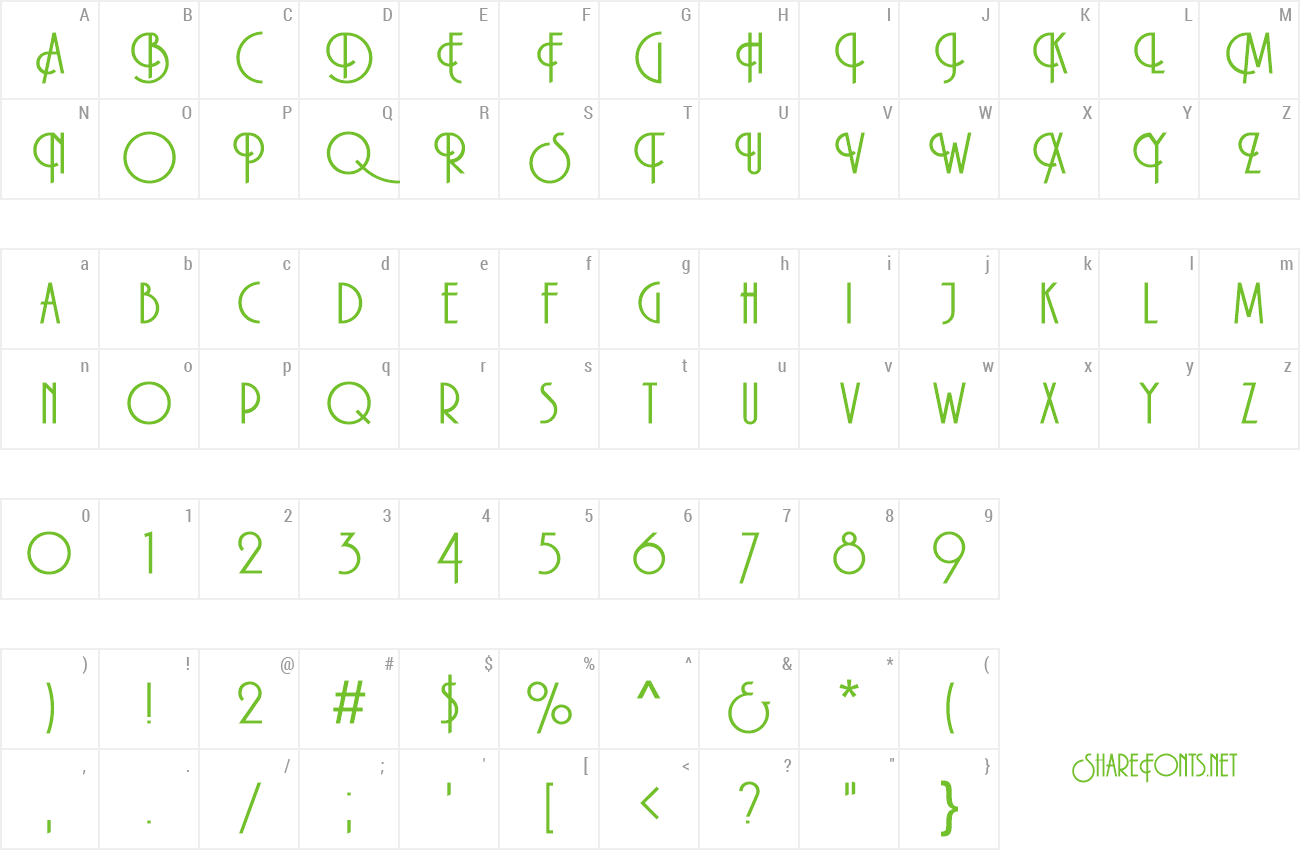
Macarena Dt Bold Font Free Download - Macarena dt contains 4 styles and family package options. Based on custom design work by dtp types limited in 1999. 100 free fonts alternatives to macarena dt bold. Web 60% what fonts are similar to macarena dt bold? Web macarena dt was published by dtp types. Web what is the macarena dt font?
Macarena dt contains 4 styles and family package options. Web what is the macarena dt font? Based on custom design work by dtp types limited in 1999. Web 60% what fonts are similar to macarena dt bold? 100 free fonts alternatives to macarena dt bold. Web macarena dt was published by dtp types.
Web what is the macarena dt font? 100 free fonts alternatives to macarena dt bold. Based on custom design work by dtp types limited in 1999. Macarena dt contains 4 styles and family package options. Web macarena dt was published by dtp types. Web 60% what fonts are similar to macarena dt bold?
Web macarena dt was published by dtp types. Macarena dt contains 4 styles and family package options. Based on custom design work by dtp types limited in 1999. Web what is the macarena dt font? Web 60% what fonts are similar to macarena dt bold?
Web 60% what fonts are similar to macarena dt bold? Web macarena dt was published by dtp types. Macarena dt contains 4 styles and family package options. Based on custom design work by dtp types limited in 1999. Web what is the macarena dt font?
100 free fonts alternatives to macarena dt bold. Based on custom design work by dtp types limited in 1999. Web 60% what fonts are similar to macarena dt bold? Web macarena dt was published by dtp types. Macarena dt contains 4 styles and family package options.
Macarena font
Web macarena dt was published by dtp types. Macarena dt contains 4 styles and family package options. Web what is the macarena dt font? 100 free fonts alternatives to macarena dt bold. Web 60% what fonts are similar to macarena dt bold?
100 free fonts alternatives to macarena dt bold. Based on custom design work by dtp types limited in 1999. Web macarena dt was published by dtp types. Macarena dt contains 4 styles and family package options. Web what is the macarena dt font?
Based on custom design work by dtp types limited in 1999. Web what is the macarena dt font? Web 60% what fonts are similar to macarena dt bold? Web macarena dt was published by dtp types. 100 free fonts alternatives to macarena dt bold.
Web 60% what fonts are similar to macarena dt bold? Based on custom design work by dtp types limited in 1999. Web what is the macarena dt font? Web macarena dt was published by dtp types. 100 free fonts alternatives to macarena dt bold.
Based on custom design work by dtp types limited in 1999. 100 free fonts alternatives to macarena dt bold. Web what is the macarena dt font? Macarena dt contains 4 styles and family package options. Web macarena dt was published by dtp types.
Based on custom design work by dtp types limited in 1999. Web macarena dt was published by dtp types. Web what is the macarena dt font? 100 free fonts alternatives to macarena dt bold. Web 60% what fonts are similar to macarena dt bold?
Web 60% What Fonts Are Similar To Macarena Dt Bold?
Macarena dt contains 4 styles and family package options. Web macarena dt was published by dtp types. Based on custom design work by dtp types limited in 1999. Web what is the macarena dt font?